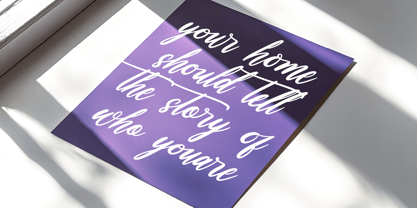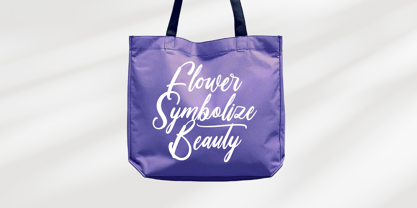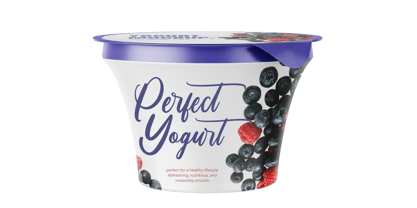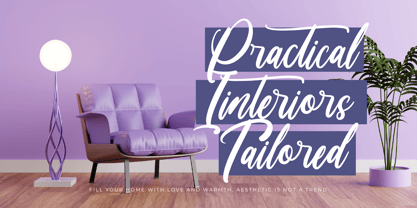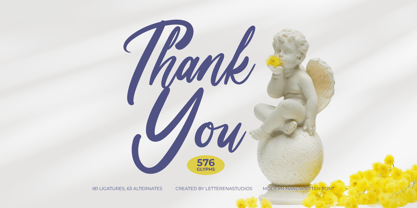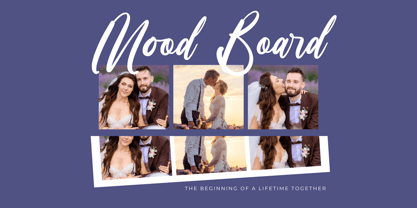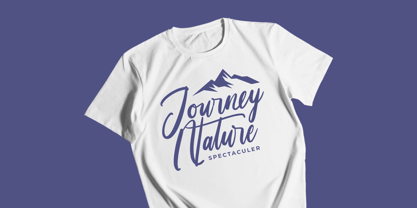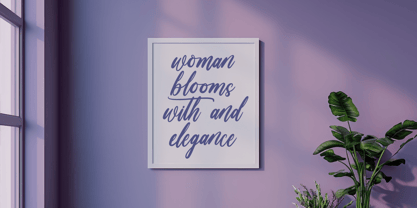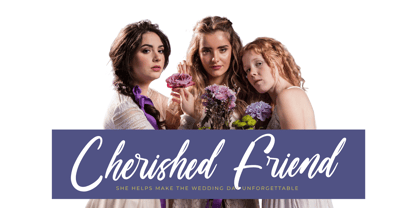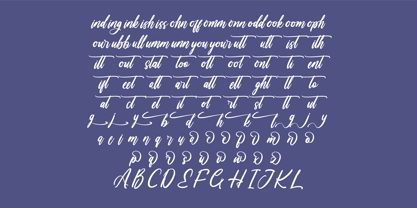
Shinerak Mottage
by Letterena Studios
The Shinerak Mottage Font Family was designed by Heru Utama Putra and published by Letterena Studios. Shinerak Mottage contains 2 styles and family package options. More about this family
Shinerak Mottage - Modern Handwritten Font , from Letterena, is a Luxury Script font, suitable for any projects such as: logos, branding projects, homeware designs, product packaging, mugs, quotes, posters, shopping bags, t-shirts, book covers, name card, invitation cards, greeting cards, label, photography, watermark, special events, and all your other luxury and beautiful projects that need a Luxury Script taste.